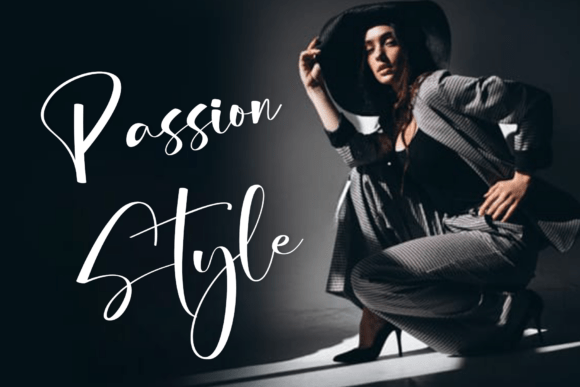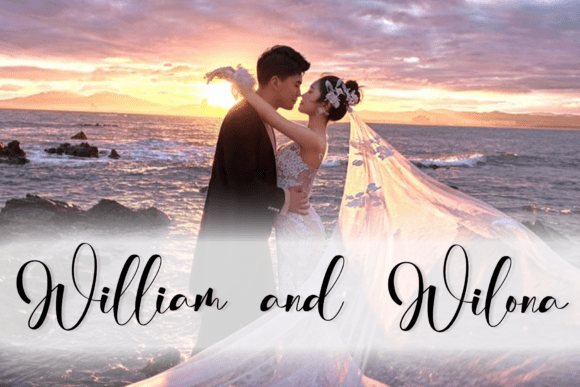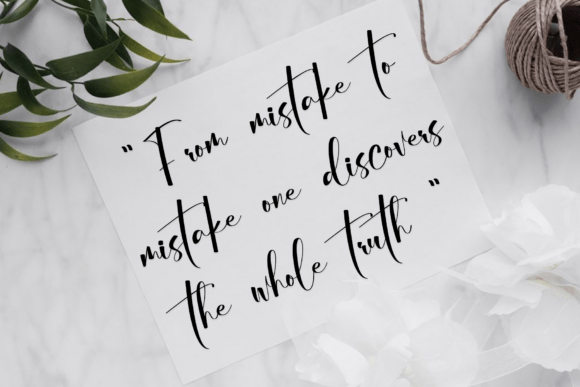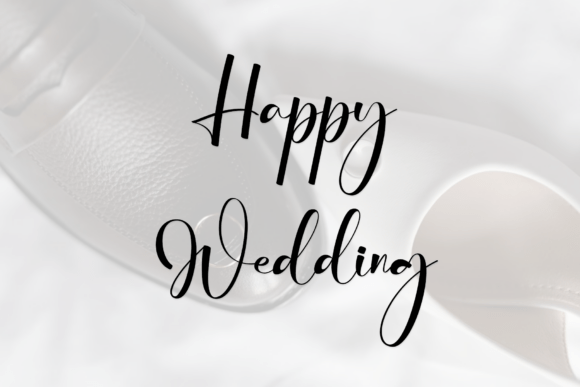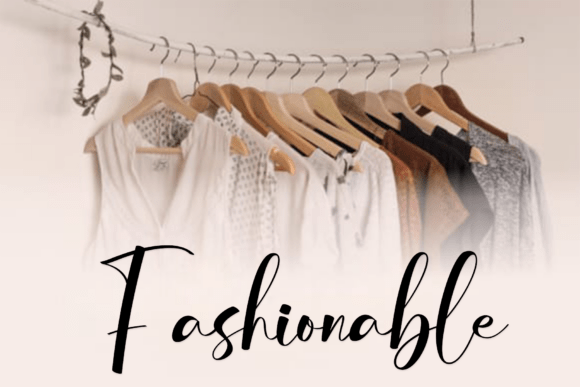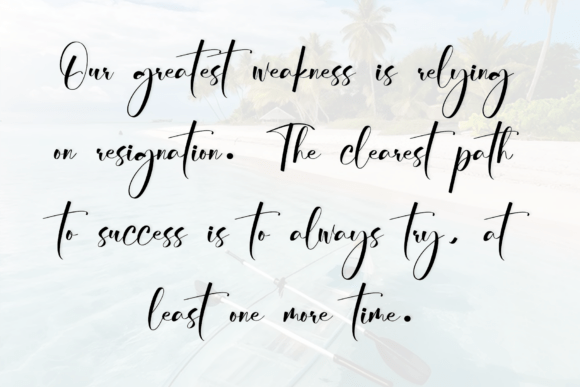
The Art of Elegant Typography: Unveiling the Bridgetown Font
As a designer, there’s nothing quite like the thrill of creating a stunning visual identity for a brand. You’re tasked with capturing the essence of a company’s personality, values, and aesthetic in a single, cohesive design. It’s a moment of pure creative magic, where the right typography can elevate a brand from ordinary to extraordinary.
Enter the Bridgetown Font, a luxurious and highly refined modern handwritten script font that embodies professional artistry. This exquisite typeface is designed to deliver a personalized touch that’s perfect for high-end branding. With its dramatic contrast between thick downstrokes and delicate hairlines, beautifully integrated ligatures, and swashes, the Bridgetown Font is a valuable addition to any designer’s toolkit. Whether you’re working on a high-end fashion label or a premium tech brand, this font is sure to bring a touch of sophistication and elegance to your designs.
Bridgetown Font Key Features
- Unique Characteristics: Bridgetown Font features a unique blend of modern and vintage elements, with subtle texture and imperfections that give it a hand-crafted feel
Bridgetown Font Review
I recently had the chance to work with the Bridgetown font, and I must say it’s a unique and intriguing choice. Here are my honest thoughts:
- Custom script font: Bridgetown has a custom script font style that adds a personal touch to any design project.
- Unique aesthetic: The font’s unique aesthetic sets it apart from more common fonts, making it a great choice for projects that need a bit of flair.
- Good legibility: Despite its custom design, Bridgetown remains easy to read, making it a practical choice for body text.
- Limited character set: Bridgetown’s character set is limited, which may cause issues for projects that require a wide range of special characters.
- Not suitable for small text: Due to its script design, Bridgetown may not be the best choice for small text sizes, as it can become difficult to read.
Bridgetown is a solid choice for designers looking to add a touch of personality to their projects. While it has some limitations, its unique aesthetic and good legibility make it a great option for the right project. Just be mindful of its limitations when choosing this font, and it’s sure to deliver great results.
Tips for Getting the Most Out of Bridgetown Font
For the best results, use Bridgetown Font in conjunction with a clean and simple design aesthetic.
Experiment with different font sizes and styles to create visual interest and emphasis.
Use Bridgetown Font for headings and titles to create a clear and consistent visual hierarchy.
Bridgetown Font is ideal for:
Creating elegant and sophisticated designs.
Adding a touch of whimsy and personality to your designs.
Establishing a consistent brand identity across multiple design platforms.
Compared to Bridgetown Font, Playfair Display is more formal and elegant, while Bridgetown Font has a more rustic and vintage feel. Playfair Display is suitable for a wider range of applications, from fashion to fine dining, while Bridgetown Font is better suited for rustic or vintage-themed designs.